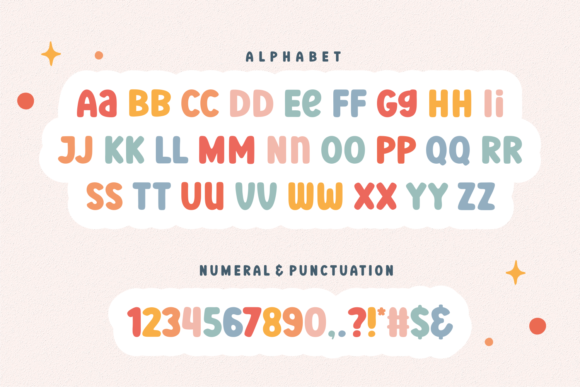
New Hopes Font
New Hopes is a cute, friendly and fun display font. Whether you’re using it for crafts, digital design, presentations, or making greeting cards, this font has the potential to become your favorite go-to font, no matter the occasion!